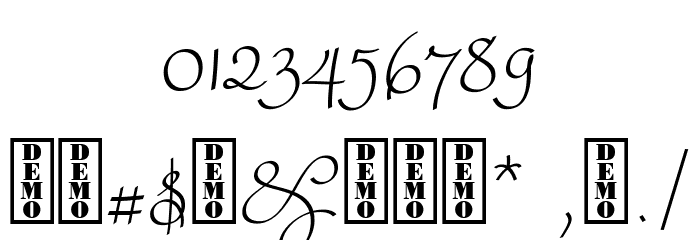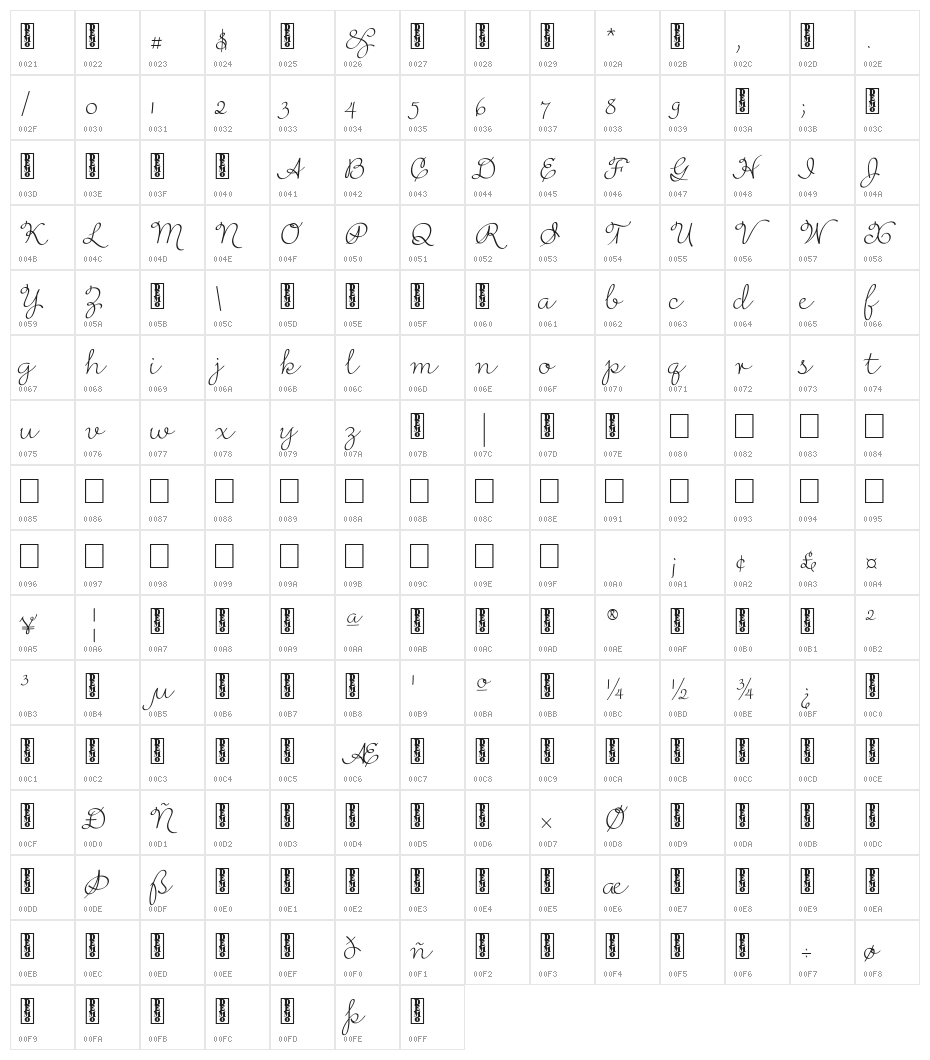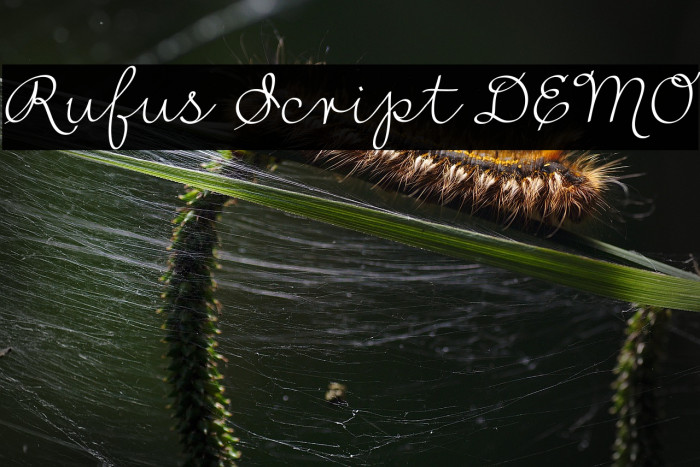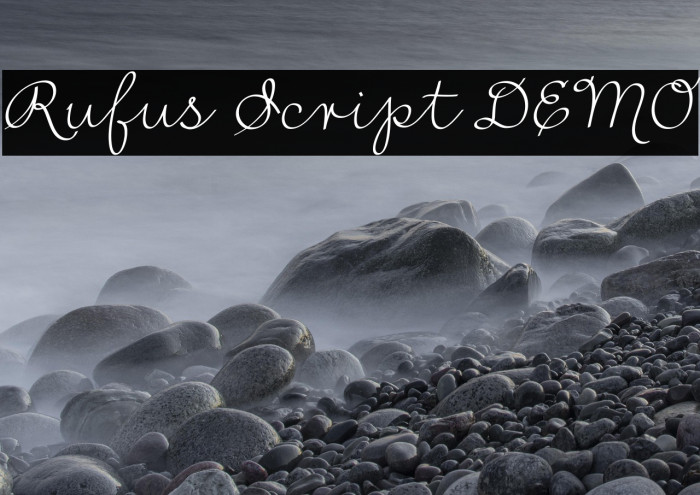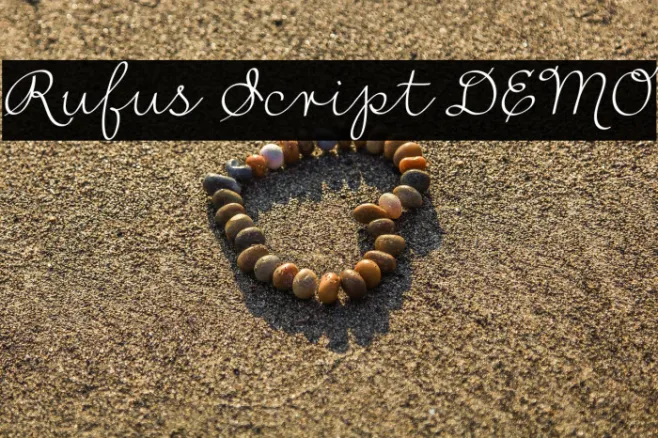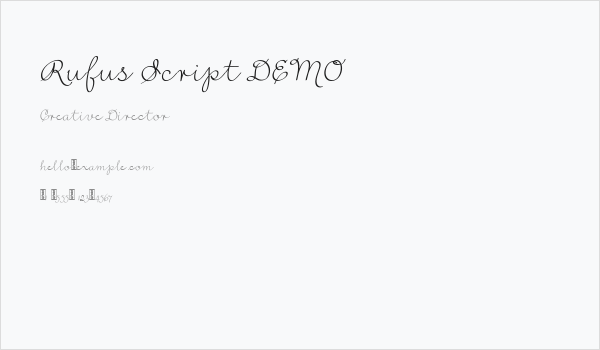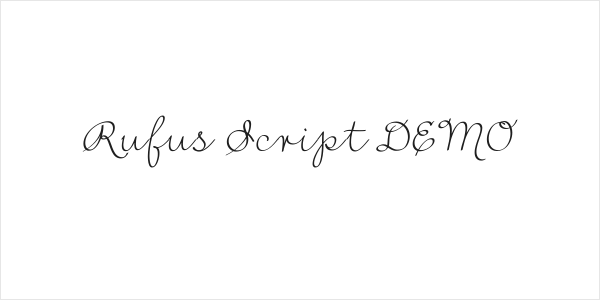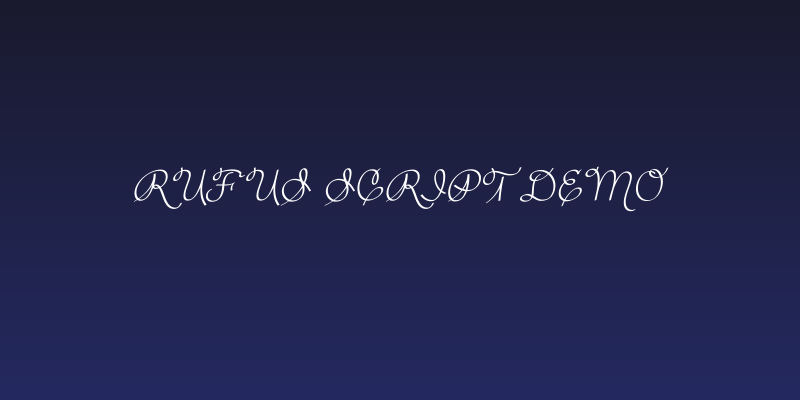
Rufus Script DEMO Font
Rufus Script DEMO Description
This elegant script font features a flowing, cursive style with graceful loops and swashes, giving it a sophisticated and artistic appearance. The uppercase letters are ornate, with intricate details that add a touch of luxury, while the lowercase letters maintain a smooth and connected flow. The numerals are consistent with the script style, offering a cohesive look throughout. Special characters are designed with the same attention to detail, enhancing the font's overall aesthetic. This font is perfect for projects that require a touch of elegance and creativity.
| Overall Style | Elegant, Artistic |
| Proposed Projects | Ideal for wedding invitations, elegant branding, greeting cards, and artistic projects. |